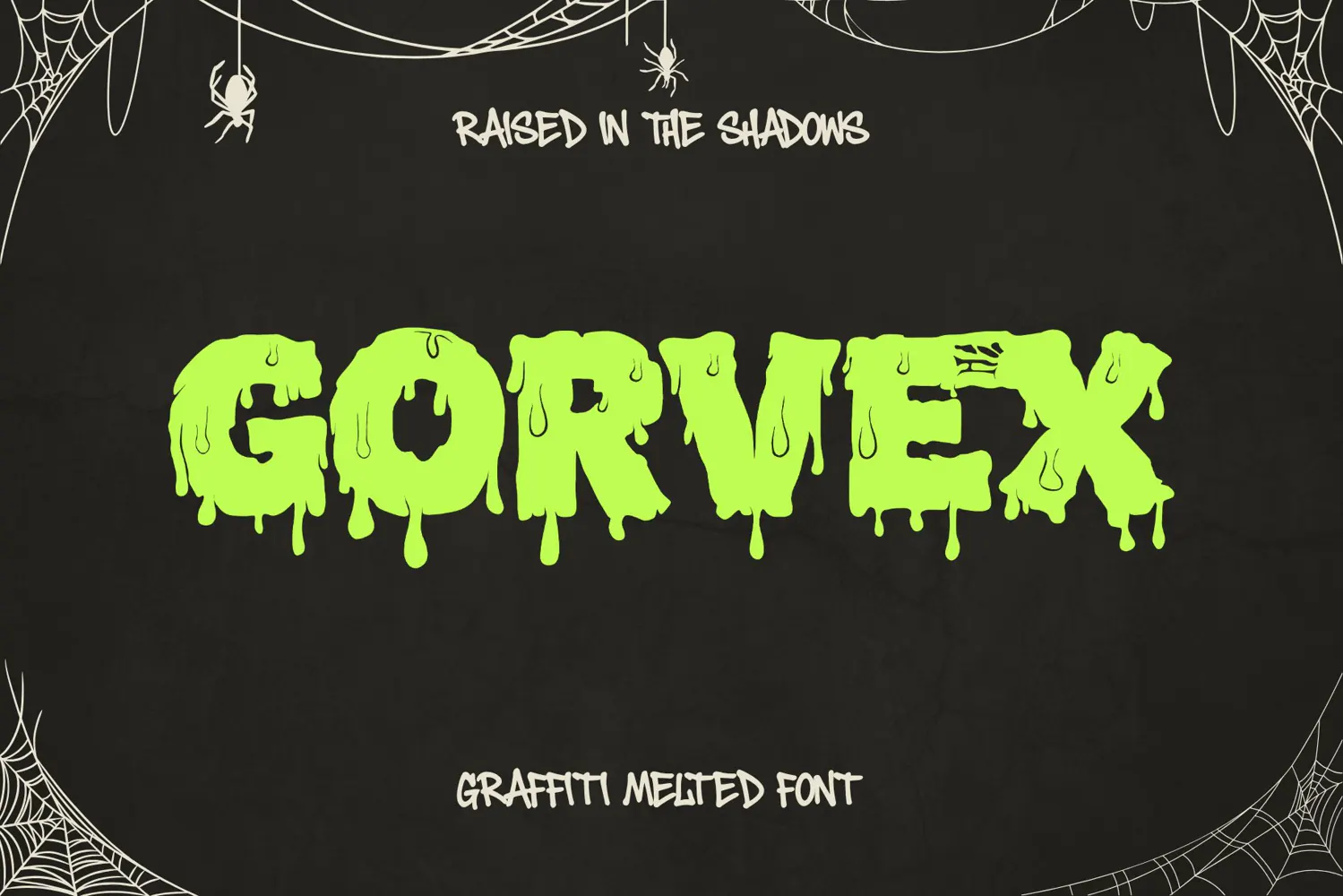
Gorvex Graffiti Melted Horror Font | Dripping Sllime Display
Gorvex is a bold and edgy graffiti display font inspired by dripping slime, street art, horror aesthetics, and underground urban culture. Featuring heavy letterforms with melted edges, dripping details, and an expressive hand-drawn appearance, Gorvex is designed to make your typography stand out with a raw and rebellious personality.
Perfect for projects that need a creepy, street-style, grunge, or Halloween-inspired look, Gorvex works especially well for large headlines and eye-catching display text. Its bold silhouette makes it highly effective for posters, T-shirts, stickers, album artwork, logos, gaming graphics, social media content, packaging, event artwork, and merchandise.
The dripping and melted details give each word a distinctive liquid-like appearance, making Gorvex a great choice for Halloween designs, horror branding, graffiti artwork, streetwear graphics, spooky posters, underground music artwork, and urban-inspired projects.
Use Gorvex when you want typography that feels bold, messy, rebellious, creepy, and unmistakably street-inspired. Whether you're designing a horror poster, graffiti logo, Halloween merchandise, gaming title, or edgy brand identity, Gorvex brings a strong melted aesthetic to your work.